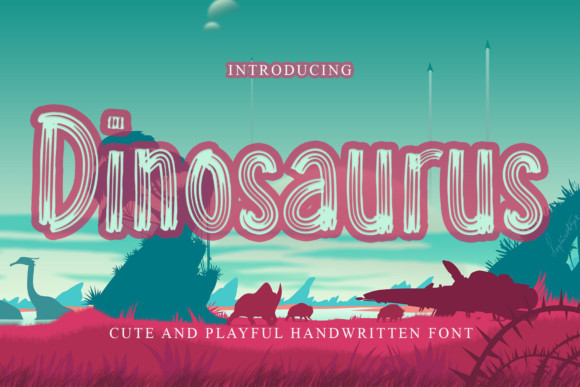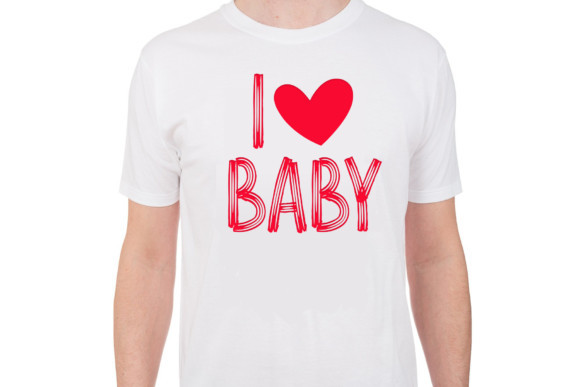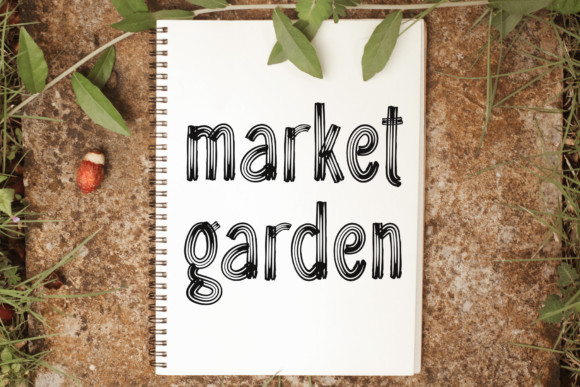
Dinosaurus Font
Dinosaurus is a very creative, brushed display font. Expertly designed, this font has the potential to bring each of your designs to the highest levels!